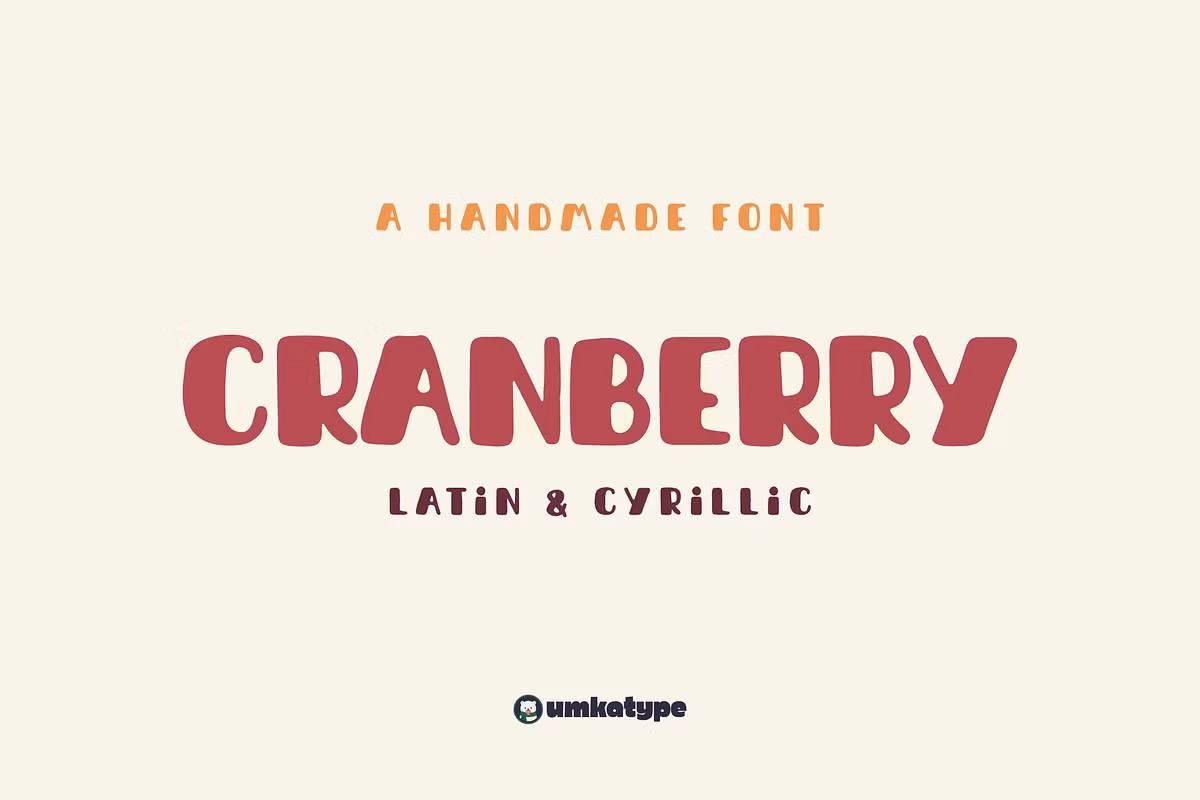
Cranberry Handwritten Display Font Free Download
Cranberry Handwritten Display Font Free Download is a lively, charming handwritten font that brings a fresh, organic feel to your designs. With its fluid strokes and playful, expressive characters, this font is perfect for creative projects, including logos, posters, greeting cards, invitations, social media posts, and product packaging.
Cranberry Handwritten Display Font Free Download has an approachable, fun vibe that gives your typography a personal touch. Whether you're working on a fun branding project, a personal blog, or designing for a lighthearted event, this font brings warmth and personality to your work.